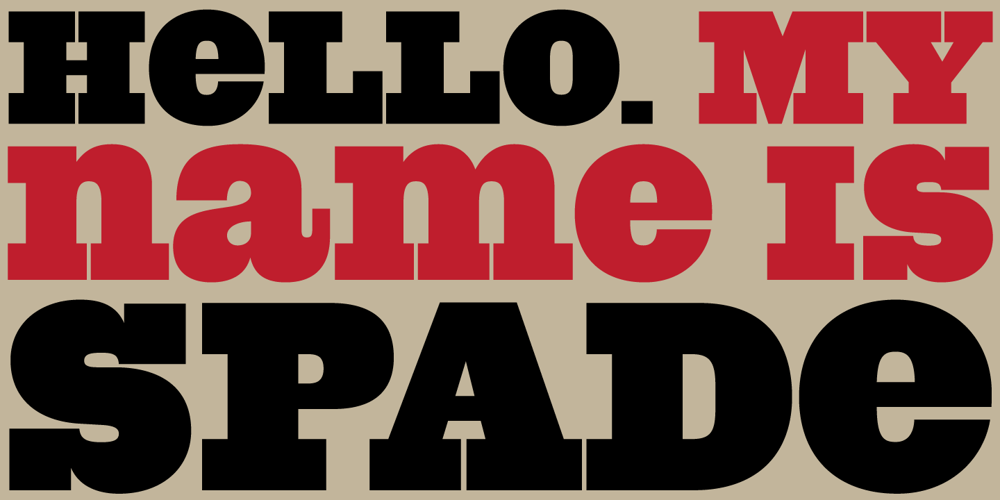
Spade
Spade font
Spade Font Family was designed by Patrick Griffin and published by Canada Type. Spade contains 4 styles and family package options. It’s big. It’s very big. Spade is a double whammy of pure slab footprint, sharp and soft, cowboy and cowgirl, country and western, shot and chaser, settlement and new frontier. It’s also quite modern in many aspects, not the least of which are the many curvy alternates included, and the smooth flow of the biform shapes when used with the main caps. Clocking in at over 670 characters per font, Spade comes loaded with very comprehensive Latin-based language support and OpenType features up to the hilt.